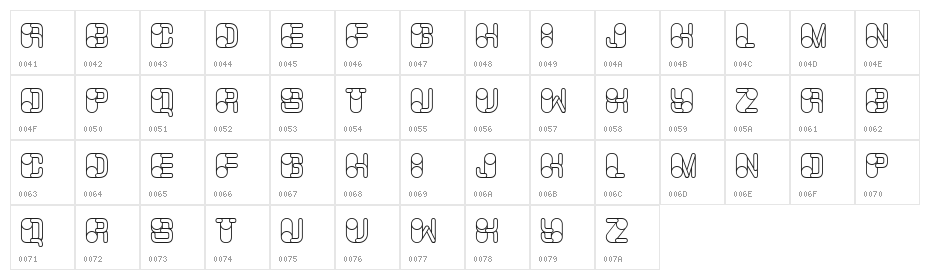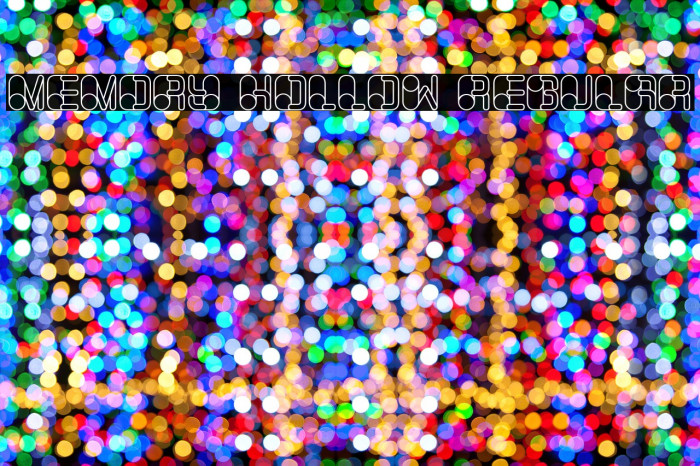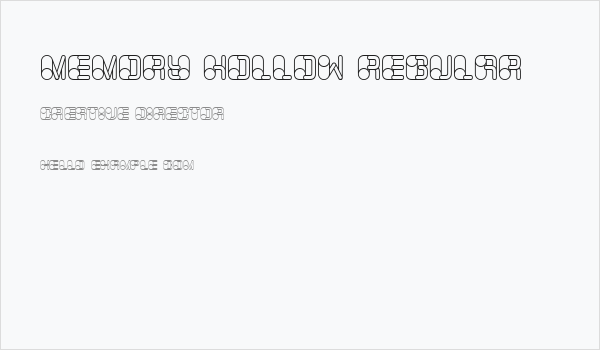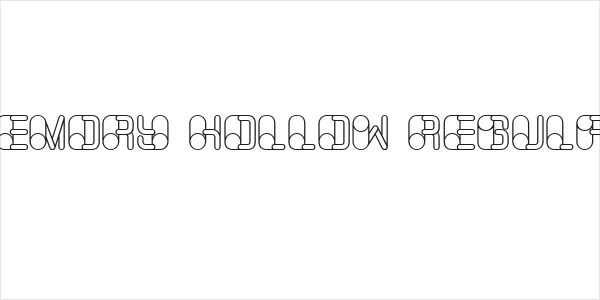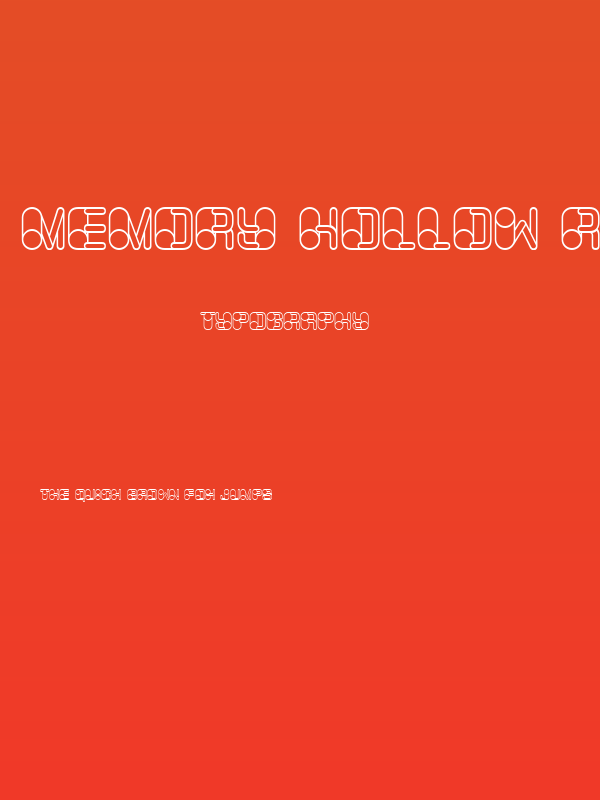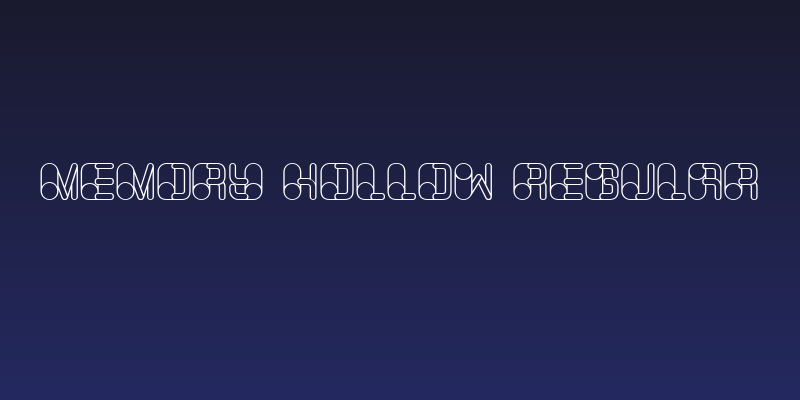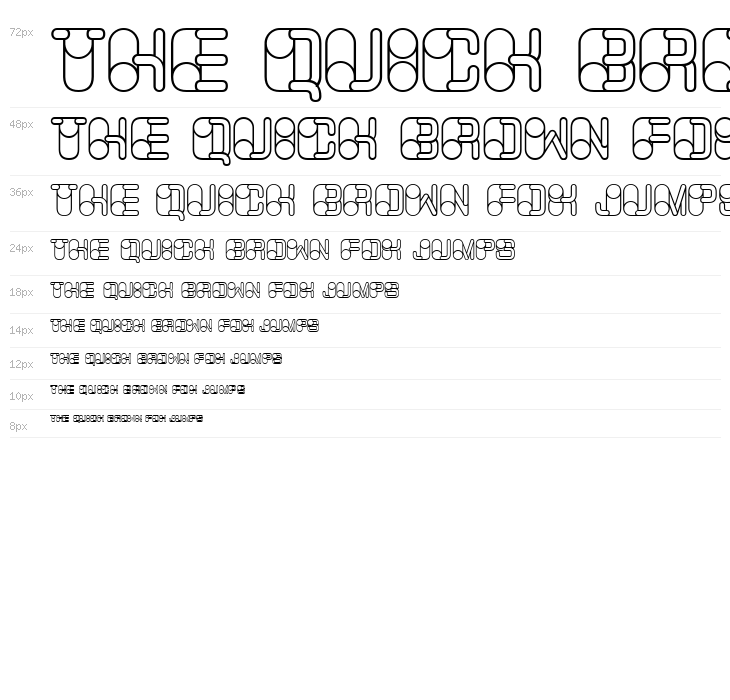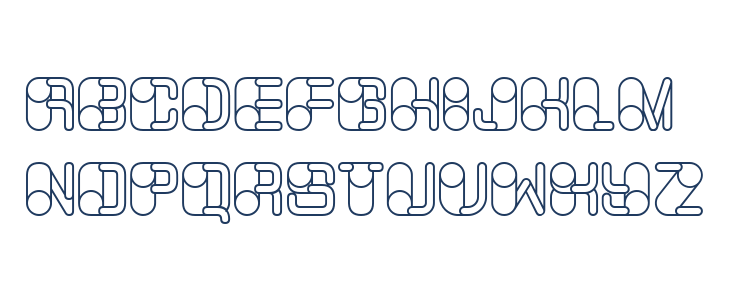
Memory Hollow Regular Font
Memory Hollow Regular Description
This font features a unique hollow design with a geometric and interconnected style. Each character is crafted with a continuous line that forms the letter shapes, creating a modern and futuristic appearance. The hollow aspect gives it a light and airy feel, while the geometric structure ensures clarity and readability. The font's distinct style makes it stand out, suitable for creative and innovative projects. Its uniform line thickness and consistent spacing contribute to its cohesive look, making it ideal for display purposes.
| Proposed Projects | Ideal for futuristic branding, tech-related designs, modern posters, and creative advertising. |